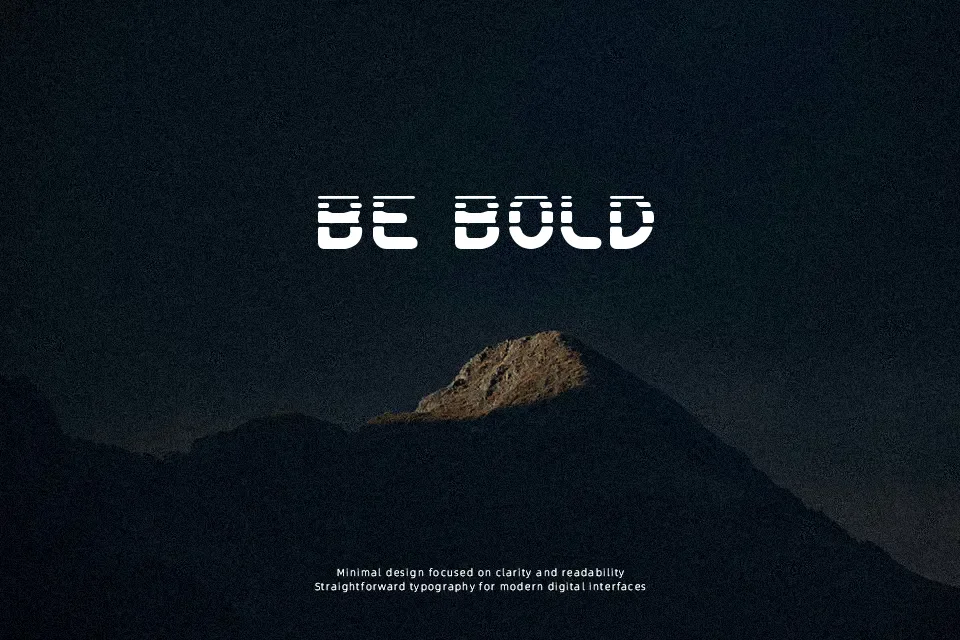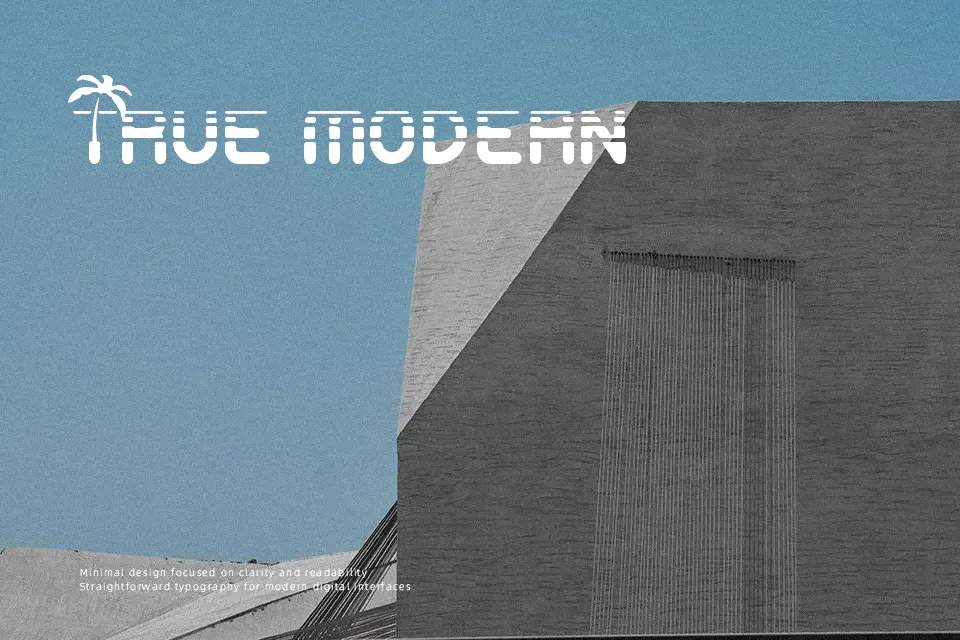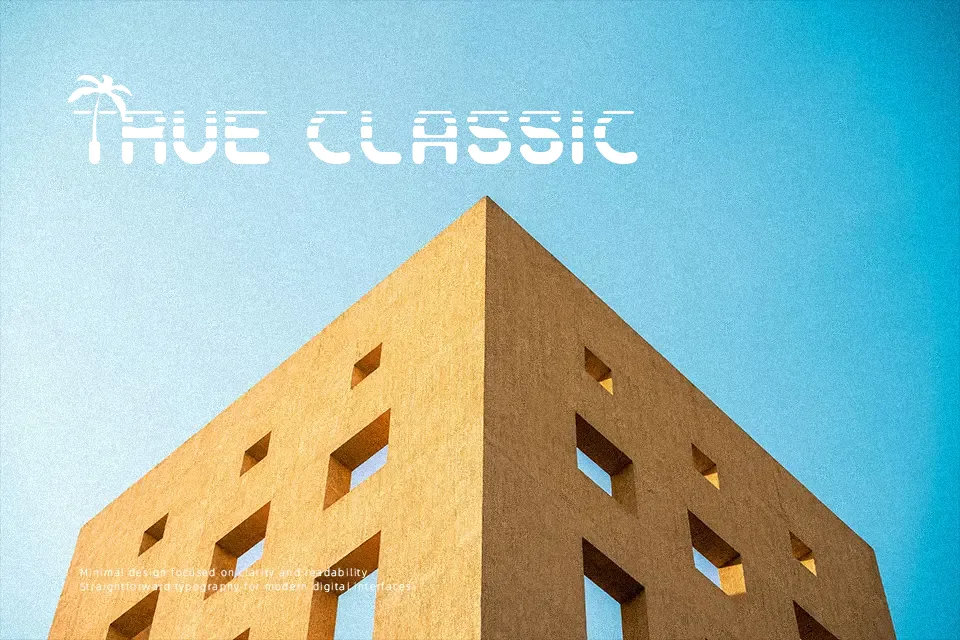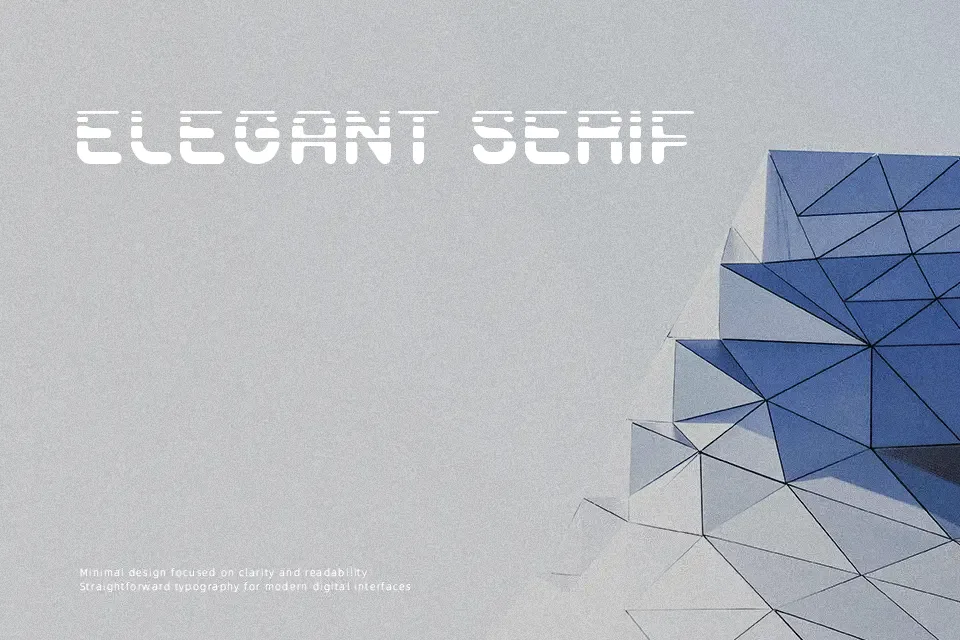
Vacaciones Font
Vacaciones Font presents an expressive display aesthetic defined by bold weights, unconventional contours, and pronounced decorative silhouettes. The letterforms exhibit substantial stroke thickness balanced by deliberate interior cutouts, producing strong graphic contrast across uppercase and lowercase characters. Moderate spacing preserves letter separation in prominent titling, while proportional widths maintain a rhythmic headline presence. The design performs exceptionally well in headline treatments, packaging graphics, and creative posters where visual punch is paramount. However, the heavy structural styling restricts legibility in continuous reading, making dense text blocks impractical. Dense forms reduce comfort during extended reading.
Best For: music festival posters,summer event branding,creative product packaging,thematic apparel graphics
Not Ideal For: continuous reading passages,corporate report text,small interface labels,dense editorial layouts
Perfect for branding, headline, and holiday, with a bold and decorative style.